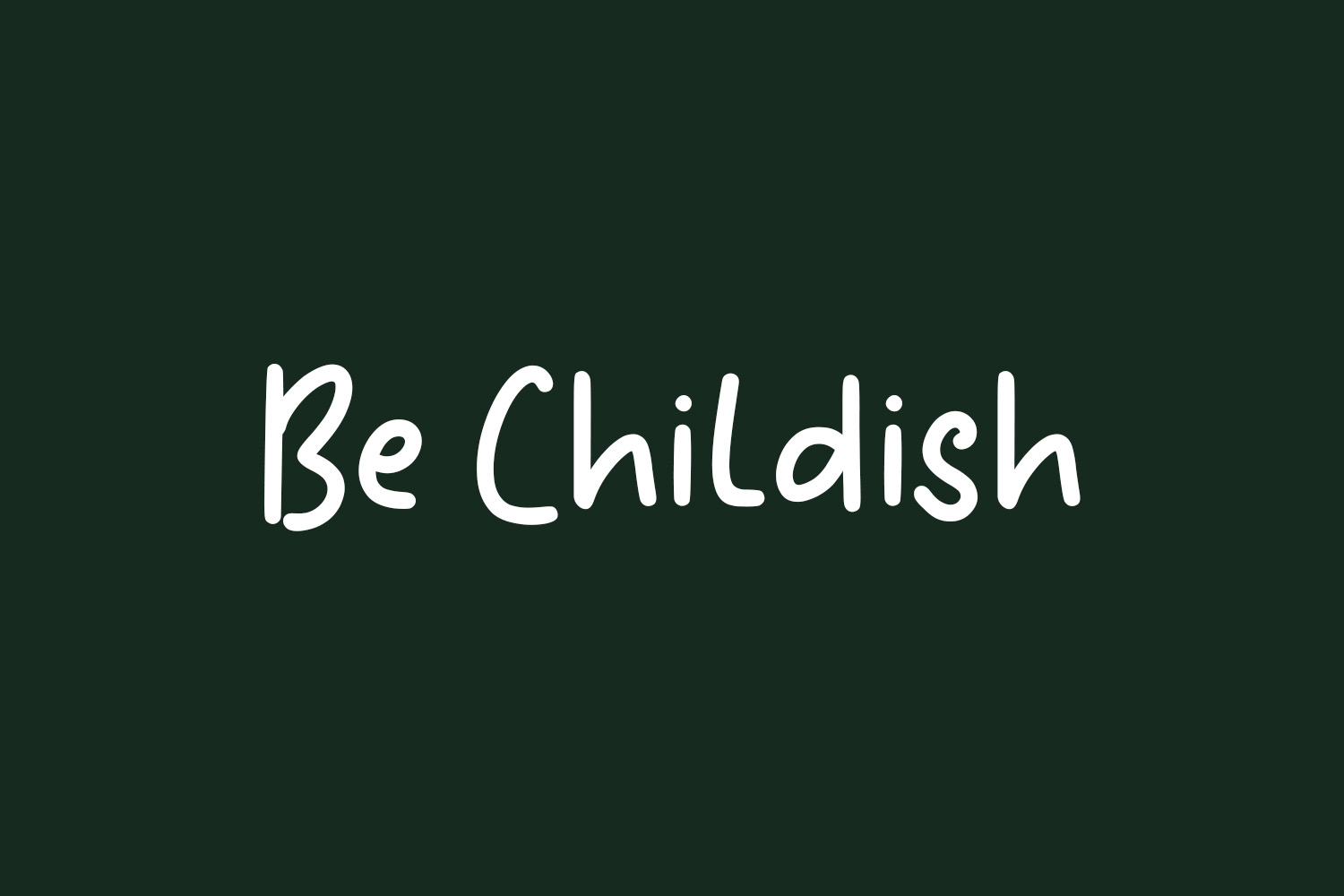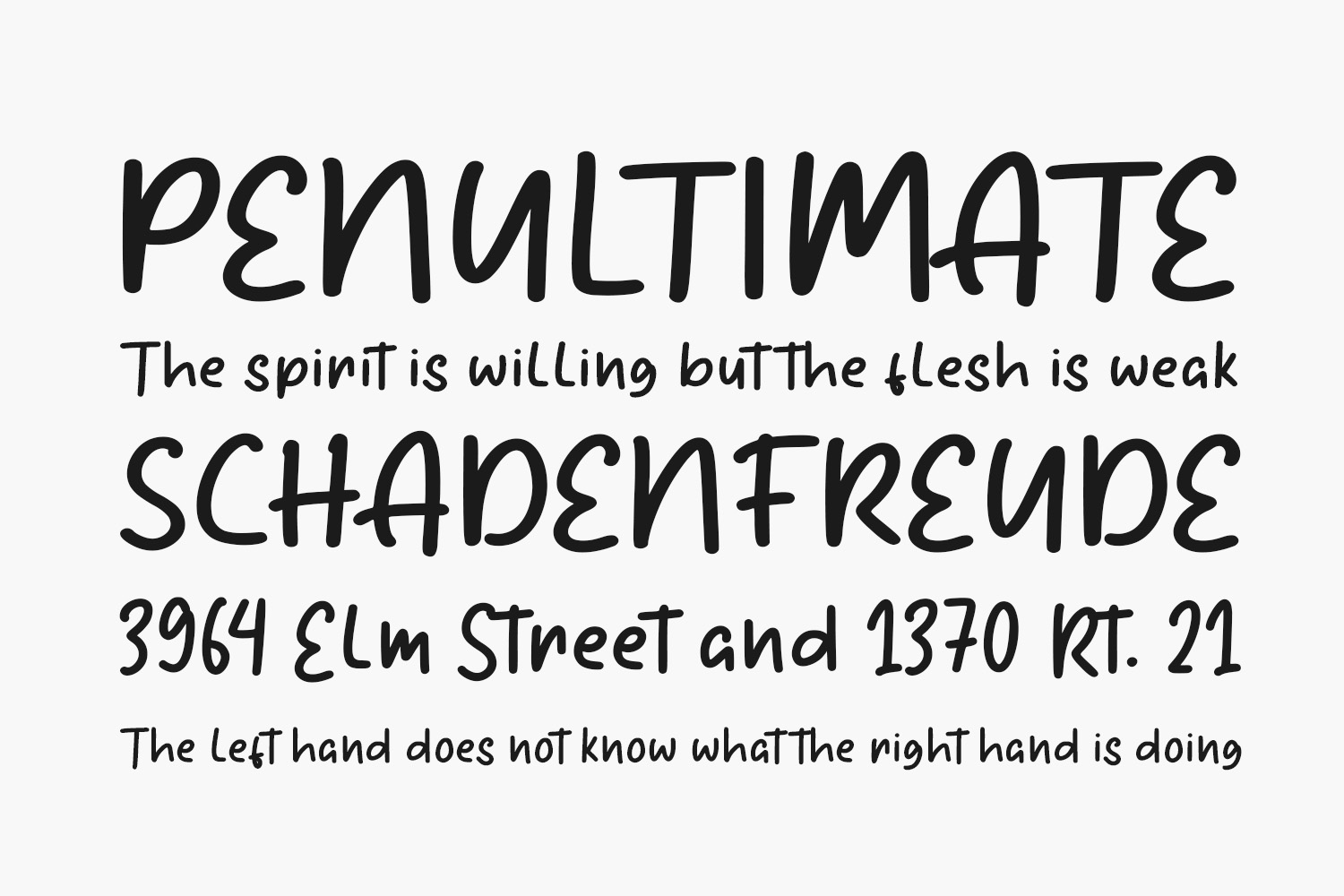
Embrace the charm of Be Childish Free Font, a versatile, stylish, and playful handwritten font that seamlessly fits into various applications, including greeting cards and headlines! Incorporate it into your creative projects, and watch it infuse a clean and exquisite feel to your designs. Be Childish Free Font was designed by Masa Aska Sanurumi and is free for personal use only. Please purchase the full version for commercial use.